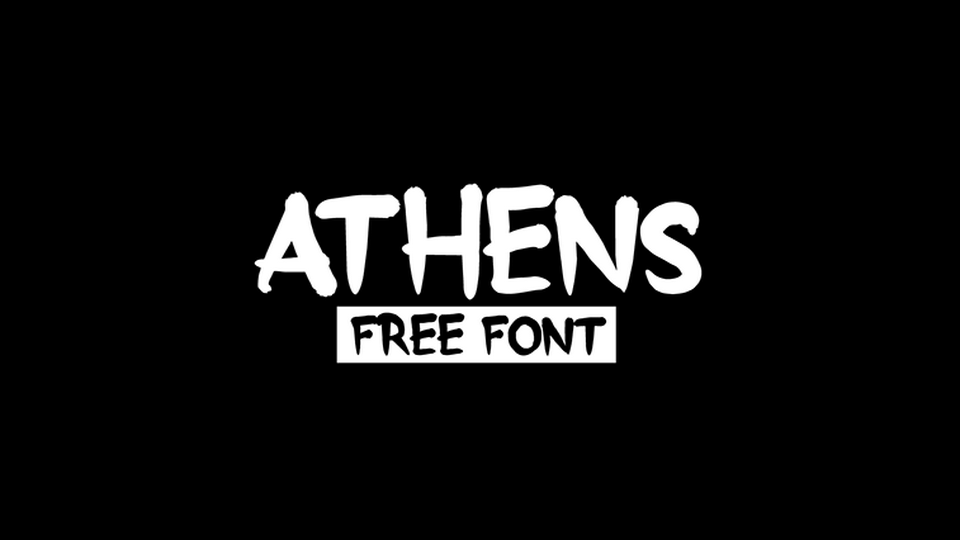
Download Athens font, a graffiti style hand painted typeface with a strong personality. Great for attractive messages, headlines and posters apparel prints and other creative projects.